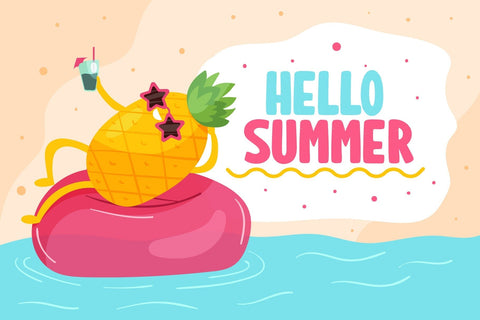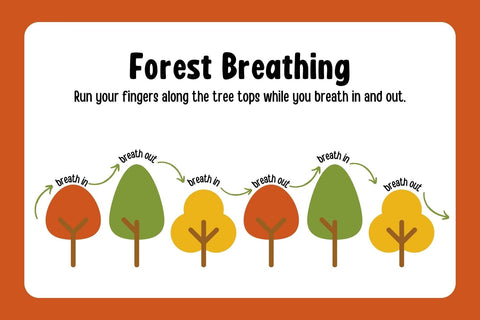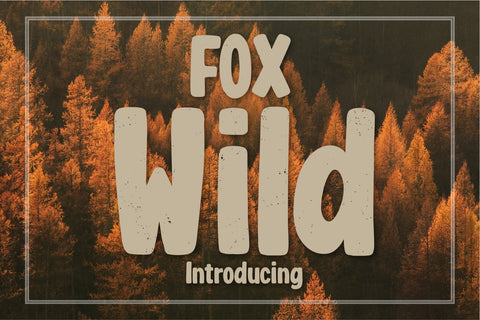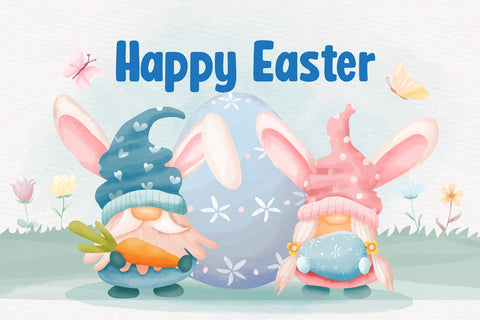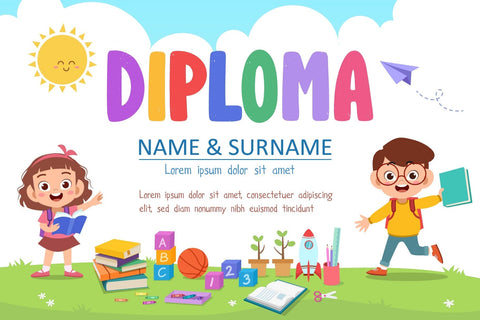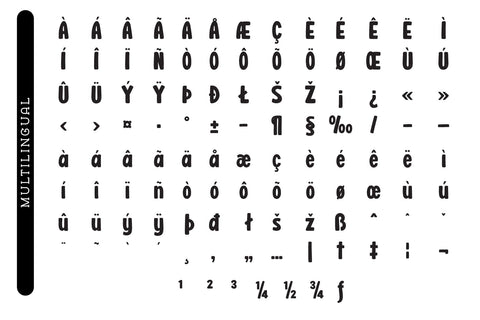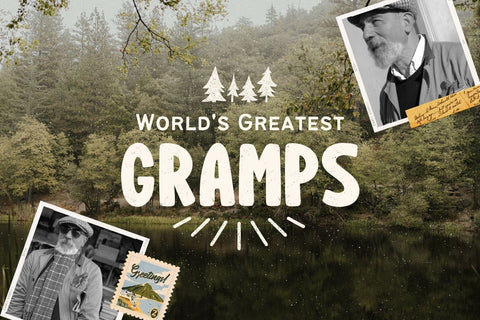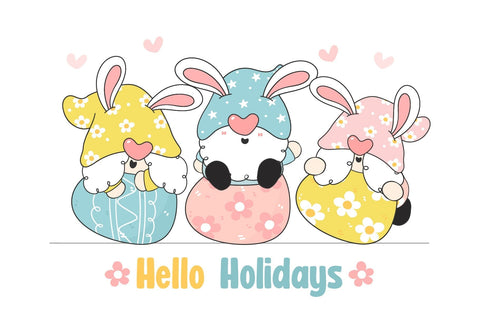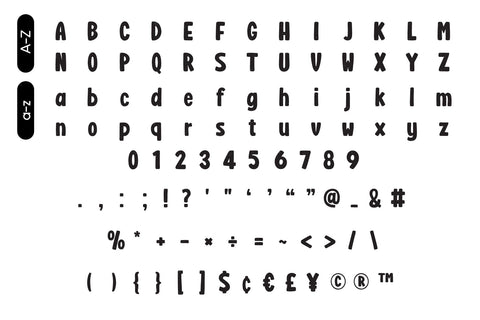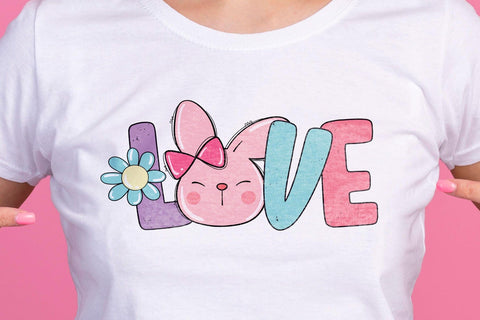
Fox Wild Font
Fox Wild is a lively and playful display font that is perfect for adding a touch of fun and cheer to any design project. Crafted with a focus on creativity and originality, this font features bold and expressive characters that are guaranteed to make your designs stand out.